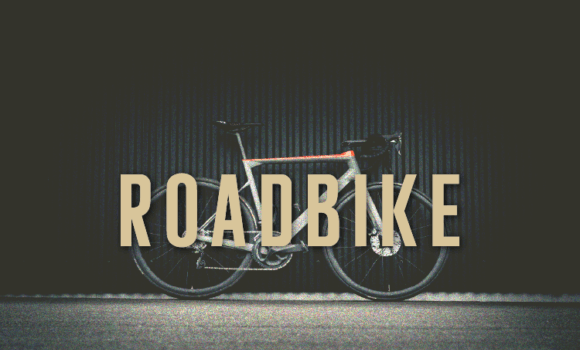
roadbike
Roadbike Font – Free Download Introduction to Roadbike Font Roadbike is an all-caps sans serif font that is so versatile and looks great in just about any context. 📸 Preview Gallery 2 images 📌 Product Name Roadbike Font 👤 Author